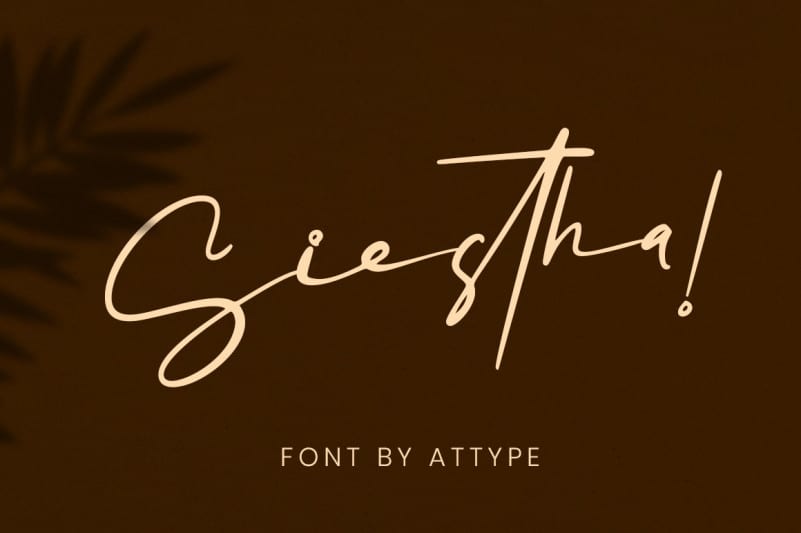
Siestha Handwritten Font
Siestha is a stylish signature font with more than 90 ligatures and ending stylistic set that make amazing combination. Perfect for any product like branding, invitation, stationery, wedding designs, social media posts, advertisements, product packaging, product designs, label, photography, watermark, special events or anything.
Siestha Font has Stylistic standard, Stylistic Alternate and ligatures. and includes uppercase and lowercase letters, numbers and punctuation marks. This font is free for PERSONAL USE.